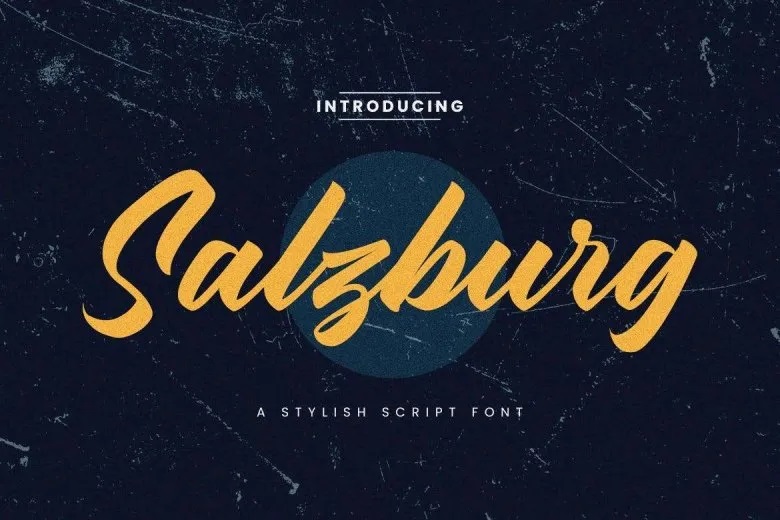
Salzburg Font
Salzburg Script is inspired by Retro Vintage style and combined with Brush Hand Lettering, giving this font its retro charm. I hope that my personality touches every curve to bring more inspiration into your work and provide an inspiring base. It makes an excellent complementary marker font suitable for handwritten quotations, packaging for products as well as headers, posters, social media, greeting cards etc.
Salzburg Brush Script Font